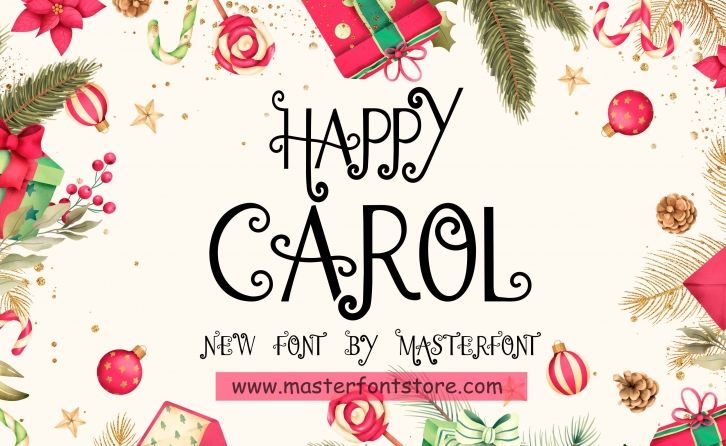
Happy Carol is a cute, whimsical and thin lettered script font. Add this romantic and lovely looking font to each of your love letters, wedding invitations or favorite design ideas, and you will be astounded by the outcome.Â